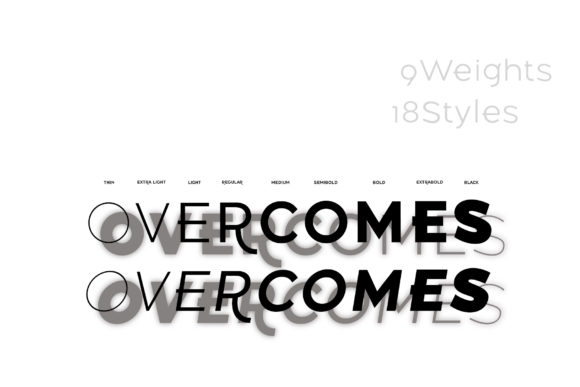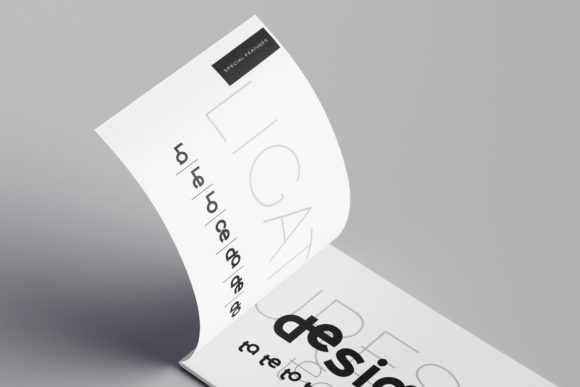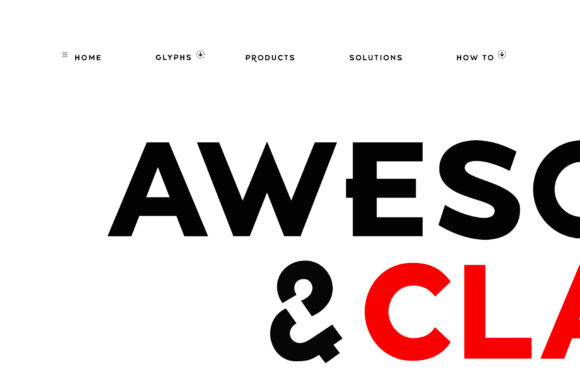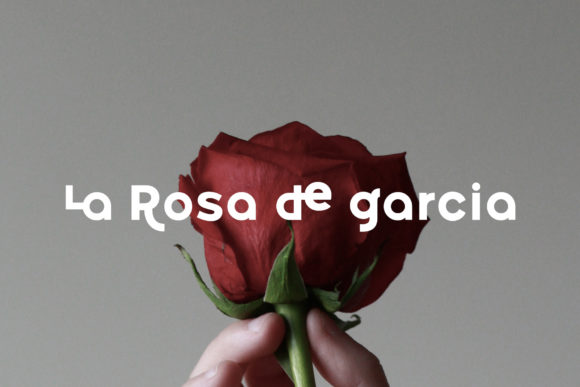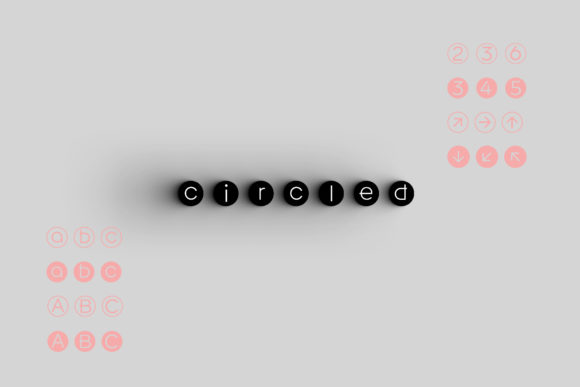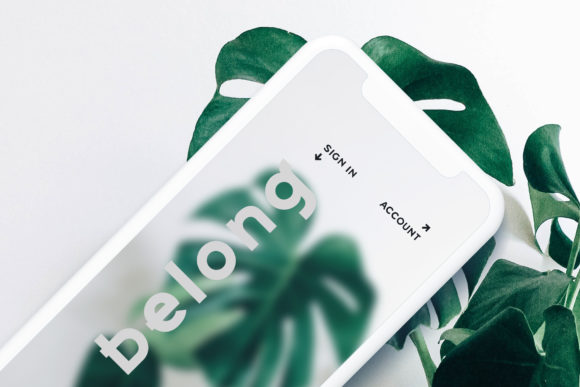
Do you ever find yourself staring at a blank canvas, unsure of where to start your next design project? We’ve all been there – the blank page staring back at us, waiting for our creative spark to ignite. For many of us, the key to breaking through that creative block lies in the perfect font. Enter the Belong Font, a beautifully crafted sans serif typeface that simplifies elegance into one outstanding design solution.
Designed to make a statement in both formal and non-formal designs, the Belong Font is the perfect addition to any designer’s toolkit. Whether you’re working on a high-end marketing campaign or a personal passion project, this versatile font is sure to elevate your design to the next level. Its neat and beautiful arrangement of letters makes it a valuable asset for any designer looking to add a touch of sophistication to their work.
Key Features of Belong Font
- Font Family: Belong is a sans-serif font family designed for modern and minimalist designs.
- Unique Characteristics: Belong features a clean and geometric design with subtle rounded edges, making it suitable for a wide range of applications, including digital interfaces, signage, and branding materials.
Designer Review: Belong Font
Overall, I think the Belong font is a solid choice for any project that requires a clean and modern aesthetic. Here are some things that I think work well: ✨
- Legibility: The font is incredibly easy to read, even at smaller font sizes.
- Neutral tone: The font’s neutral tone makes it suitable for a wide range of applications, from corporate materials to personal projects.
- Flexibility: The font comes in multiple weights and styles, making it easy to find the perfect fit for your project.
- Limited expressive power: The font’s clean and modern aesthetic can make it feel a bit sterile or unengaging in certain contexts.
- Lack of personality: While the font is neutral, it can also feel a bit bland or unremarkable in certain situations.
Overall, I think the Belong font is a great choice for projects that require a clean and modern aesthetic. While it may not be the most exciting or expressive font out there, it’s a solid choice that gets the job done.
The Belong Font is ideal for:
- Creating eye-catching headlines and titles.
- Designing modern and minimalist branding materials.
- Adding a touch of sophistication to digital products and services.